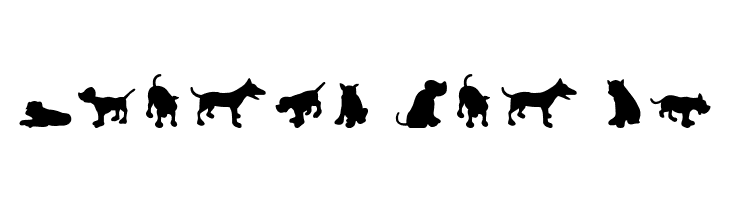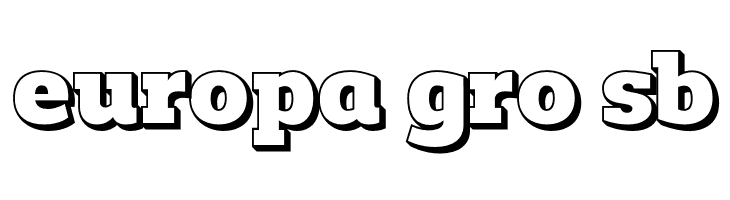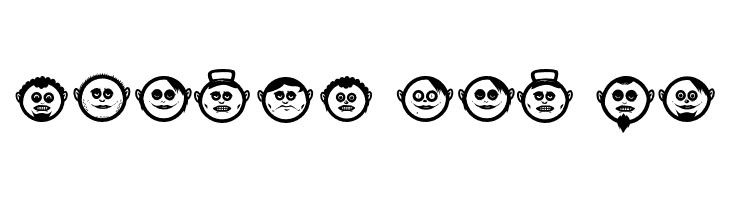
( Fonts by Dieter Steffmann ) An ornate, decorative font with intricate embellishments and a historical feel. Download 140 Downloads@WebFont
( Fonts by Maniackers Design - www.mksd.jp OFF SITE ) Dog silhouettes in various poses and breeds. Download 0 Downloads
( Fonts by typies.blogspot.com.es ) A bold, shadowed font with a strong, dynamic presence. Download 1464 Downloads@WebFont
( Fonts by Rodrigo German - RASDESIGN ) A playful collection of face icons with various expressions and styles. Download 152 Downloads@WebFont